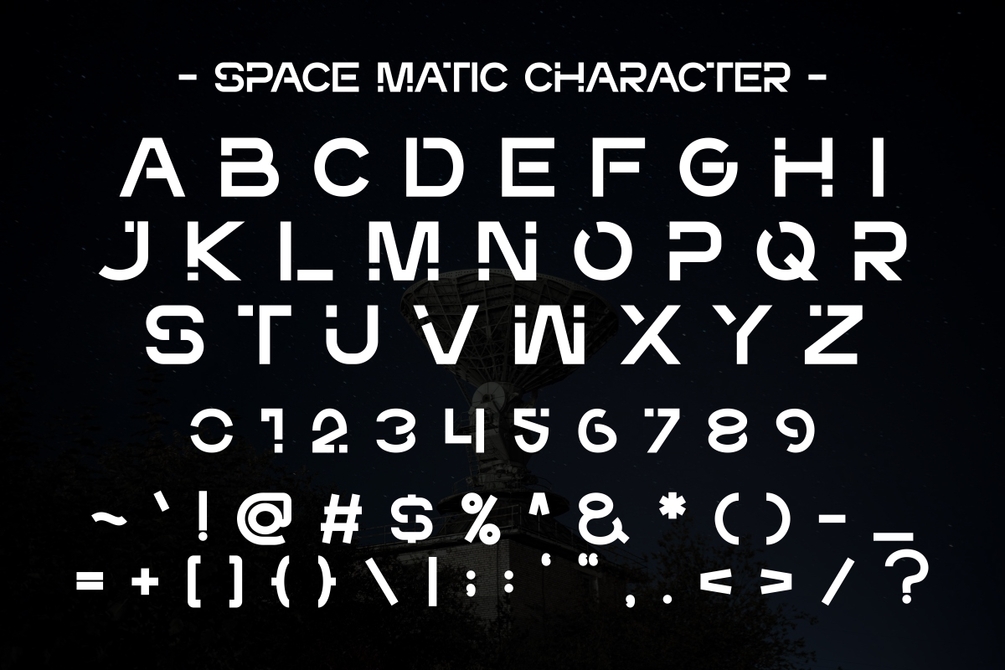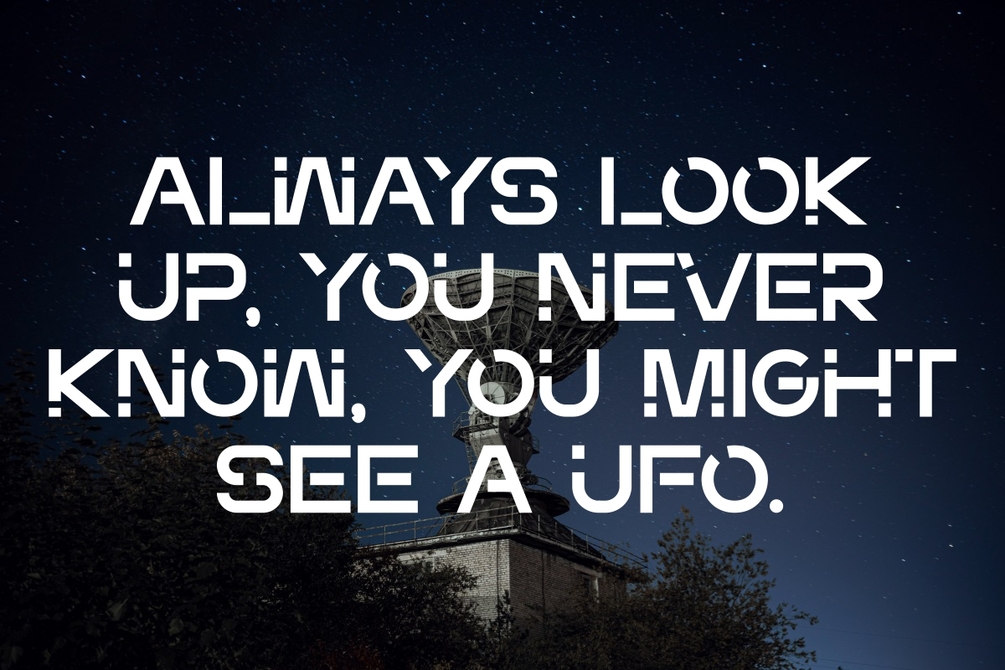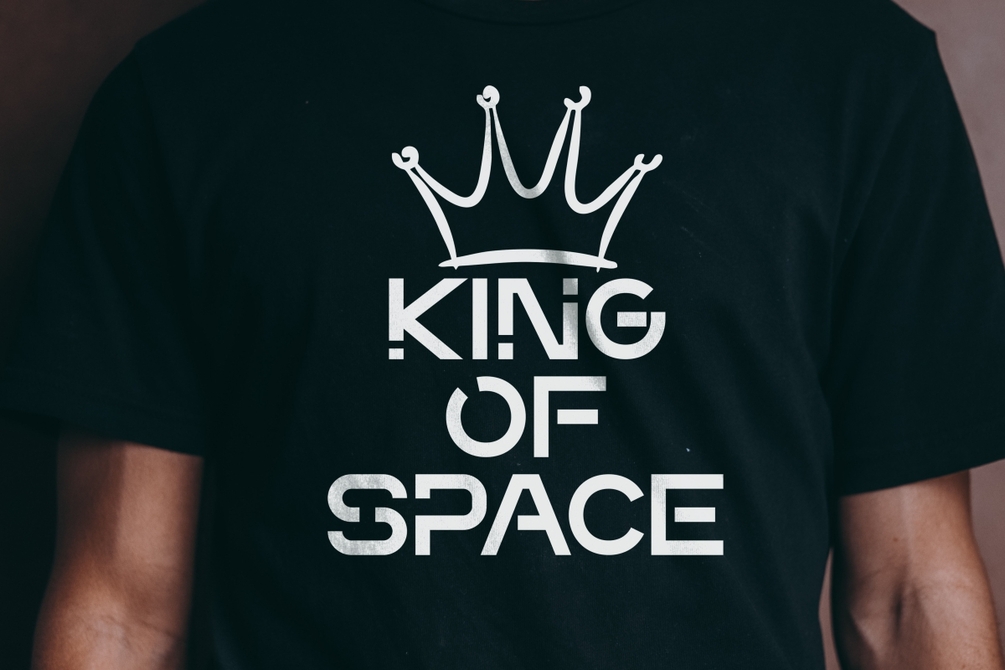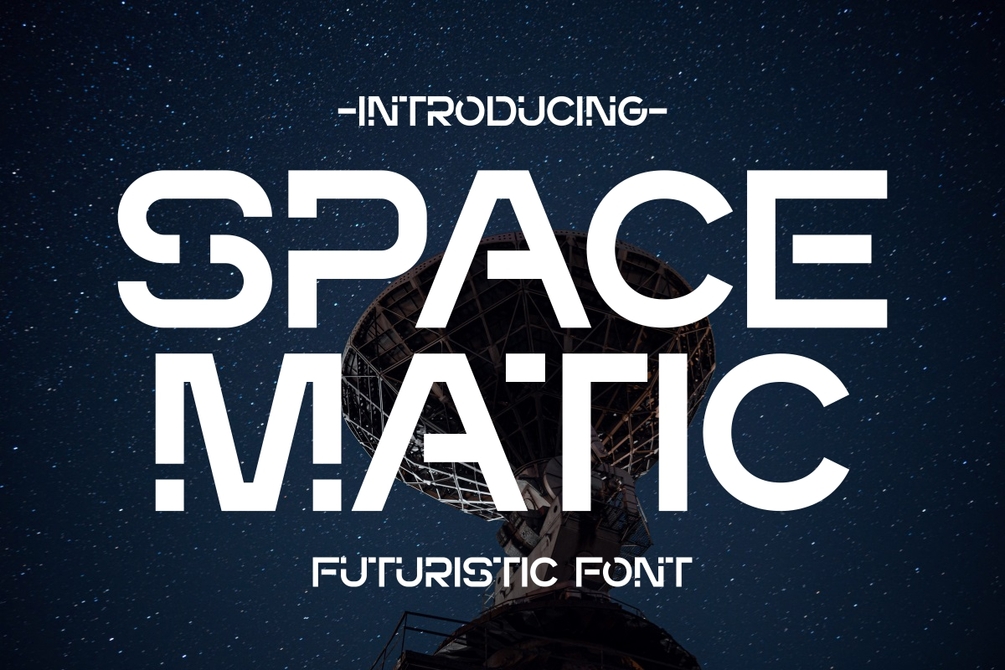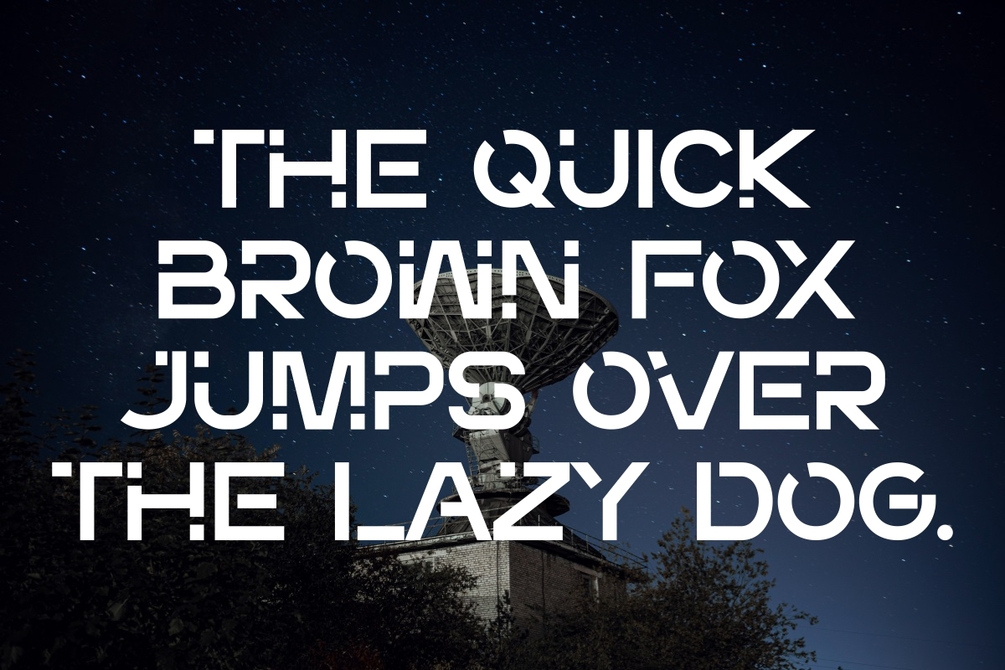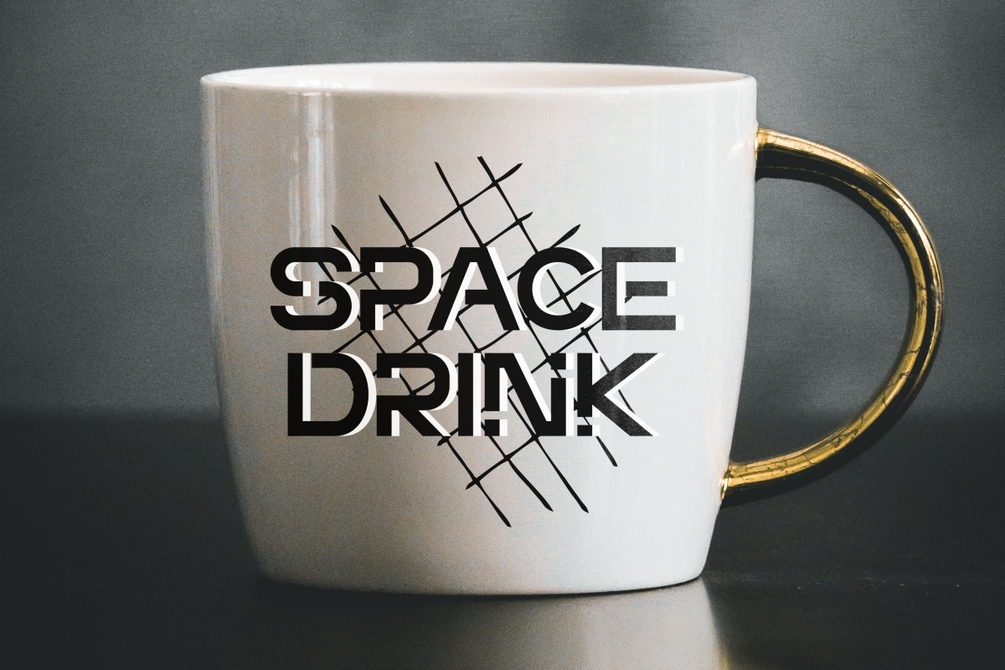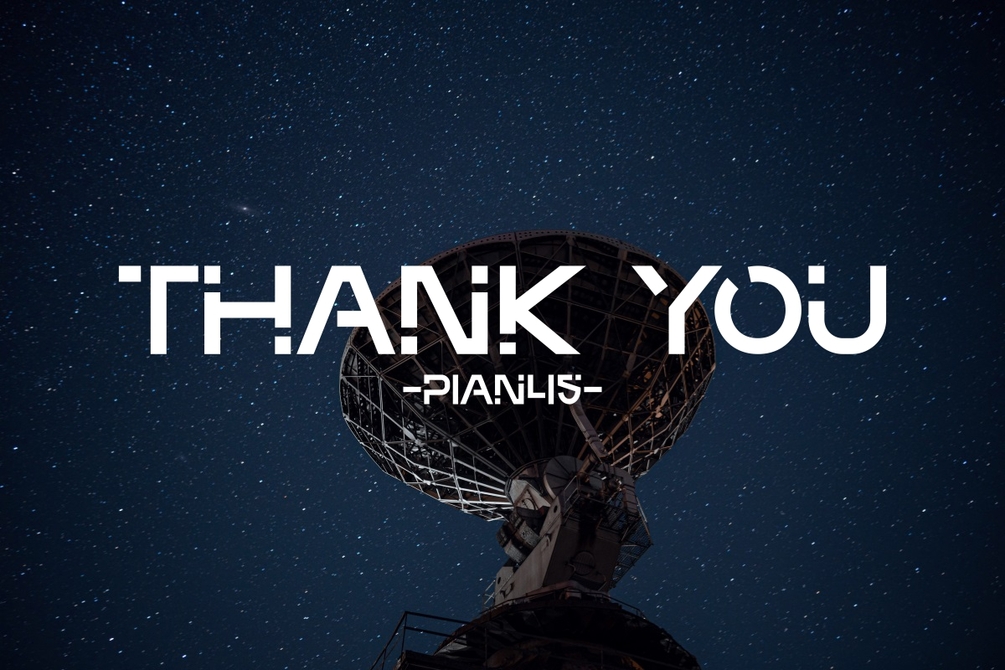
Space Matic - Futuristic Font
Space Matic is a cutting-edge futuristic display font that embodies modern technology and sleek design. This font are seamless blend of futuristic aesthetics and contemporary style. Space Matic is perfect for projects that demand innovation and a touch of modernity.